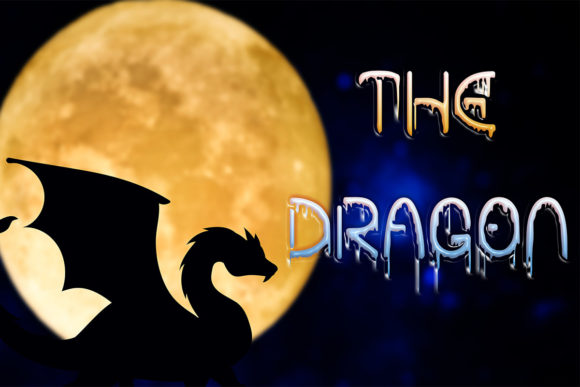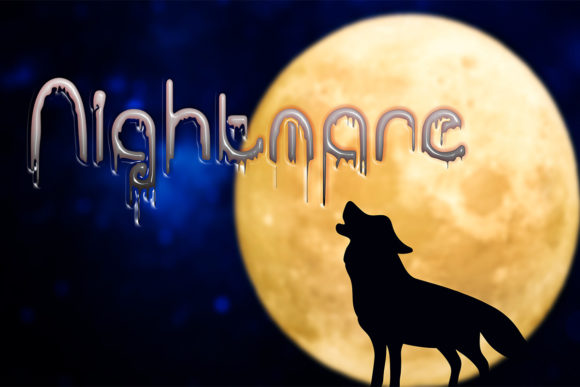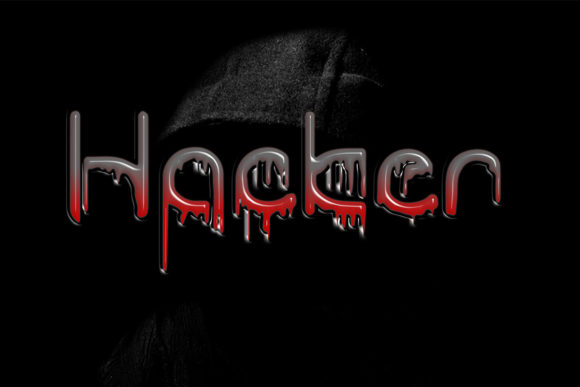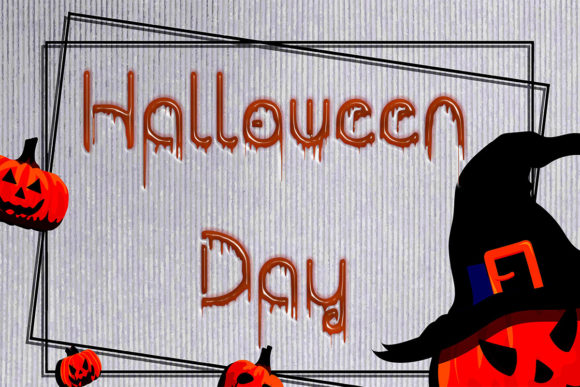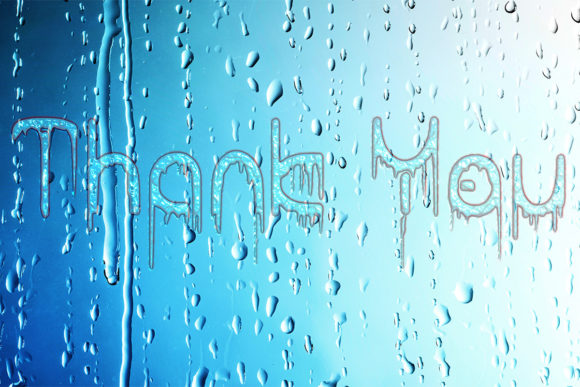
Introduction to Scary Zombie Font
Scary Zombie is a creepy and dark display font.
It will look great on any design idea that requires a gloomy, scary design related to Halloween .
Key Features of Scary Zombie Font